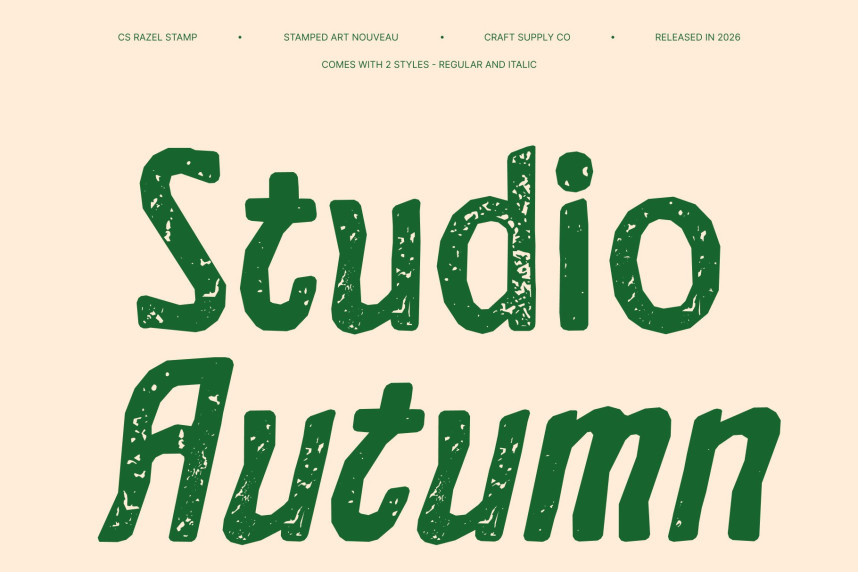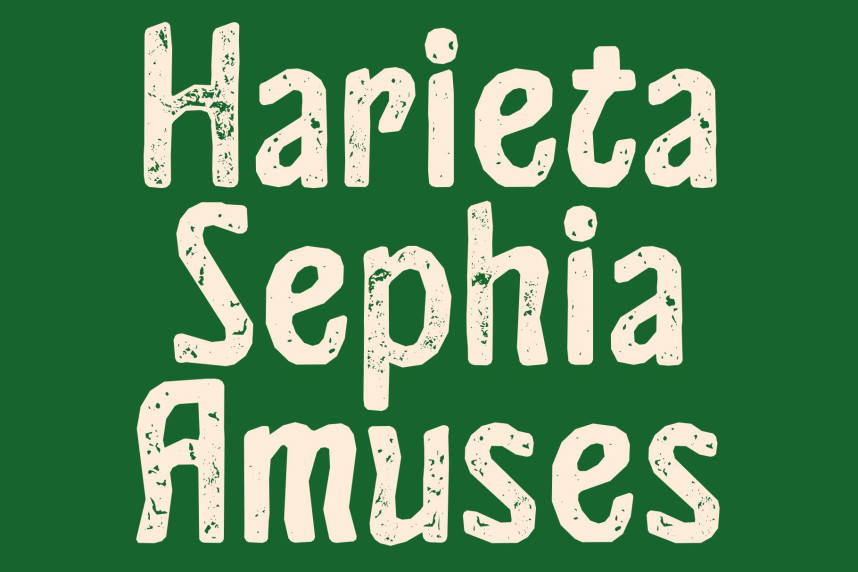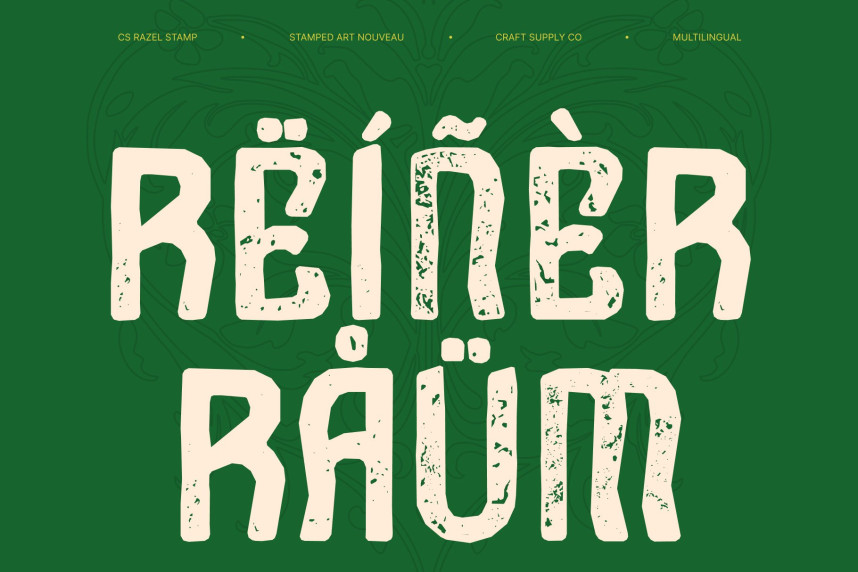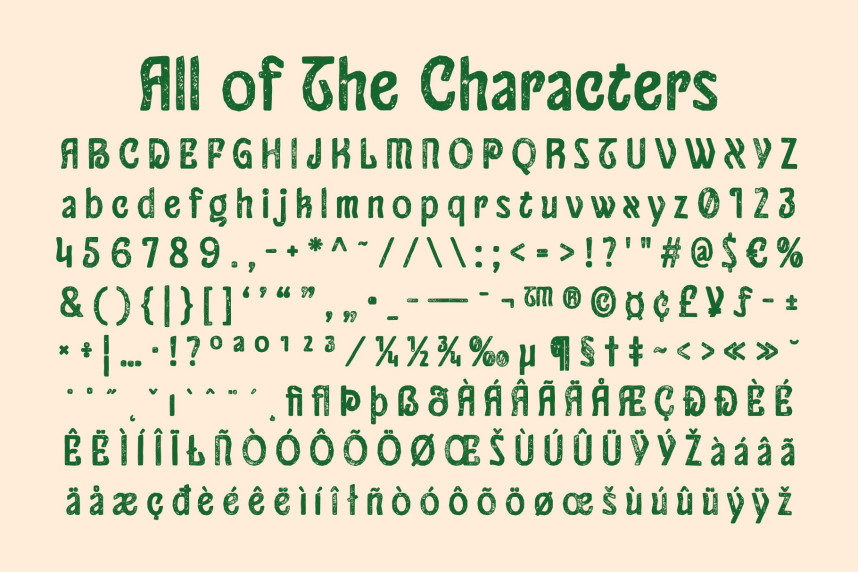
CS Razel Stamp Font
CS Razel Stamp Font – Art Nouveau Display Sans Serif Font: Where Flowing Elegance Meets Vintage Stamp Texture
Graceful Art Nouveau Forms with Modern Clarity
This is a display sans serif font that merges the flowing elegance of Art Nouveau with the clarity of modern typography. Its graceful curves, refined proportions, and decorative structure create a sophisticated visual identity filled with artistic beauty and timeless charm. Every character feels polished and expressive, making the font perfect for luxurious and visually refined creative projects.